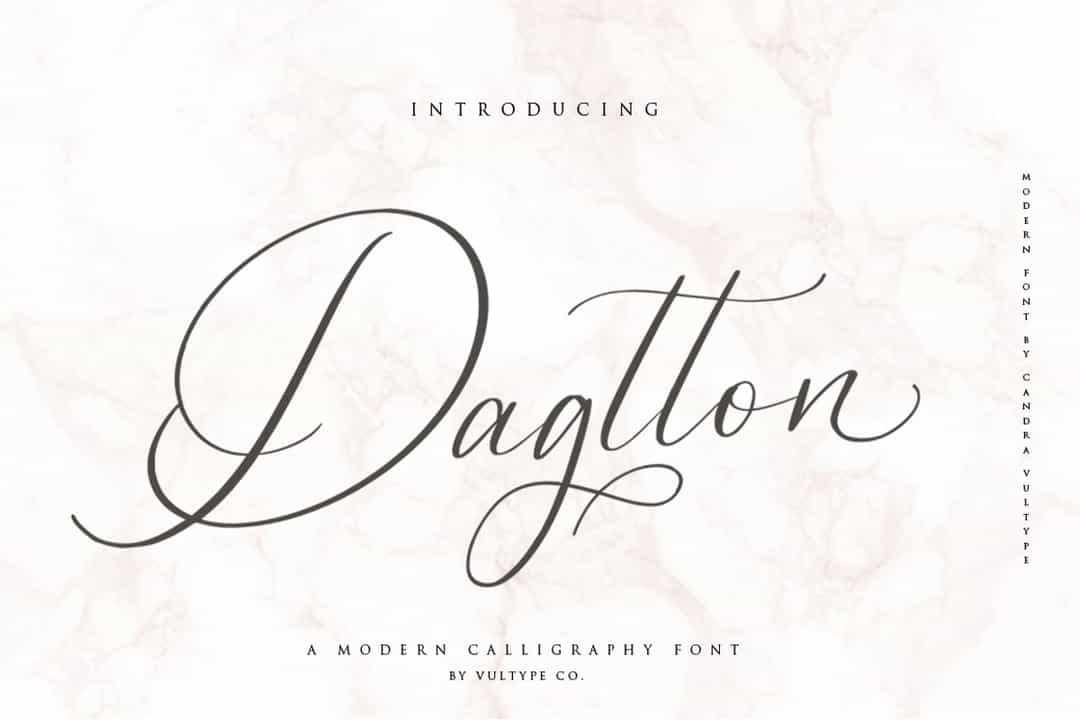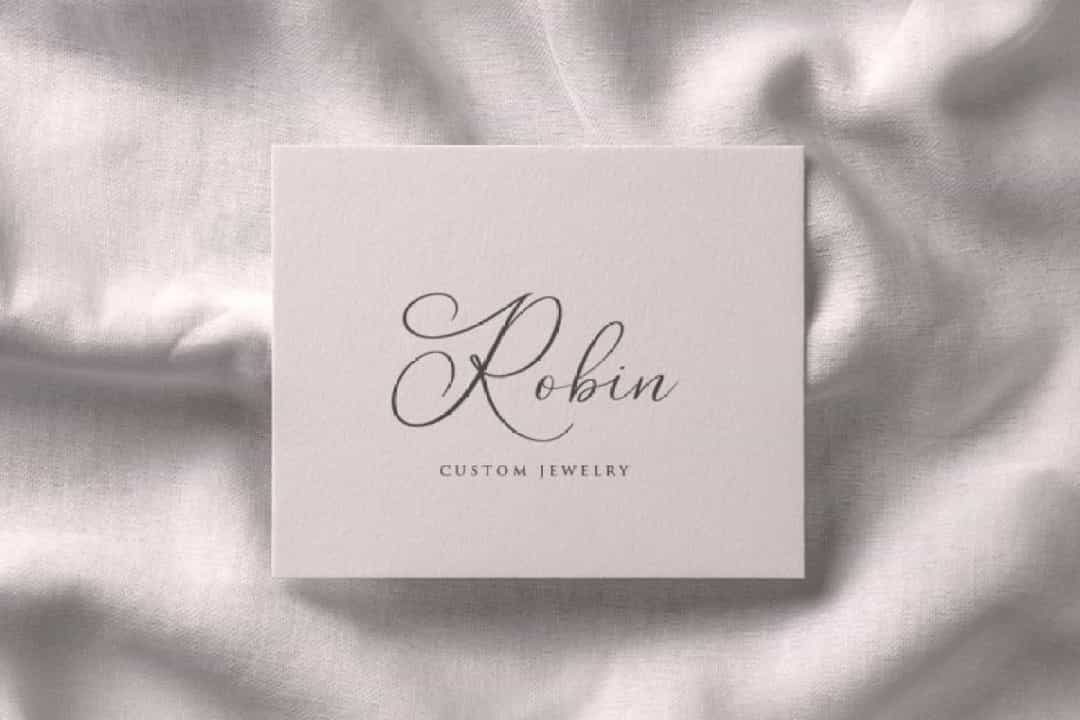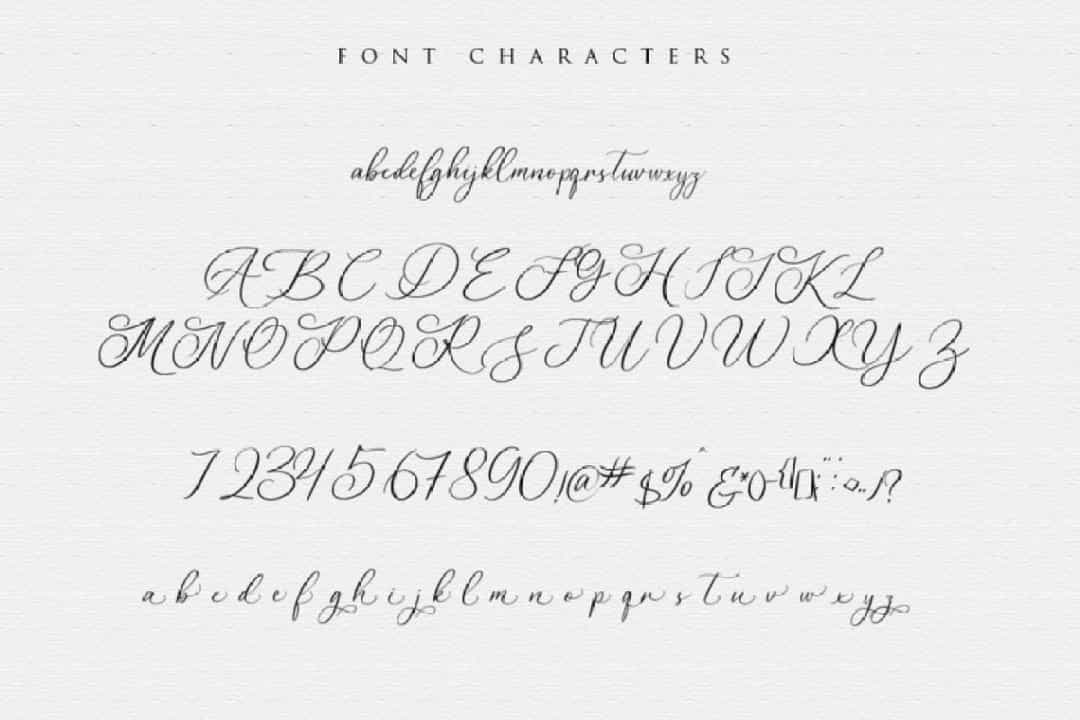
It’s a very graceful calligraphy font, with fine details and it is perfect for creating invitations to weddings, cards for thank you, or special greetings, cards for any occasion, business cards and, logos for companies and brands to give them a more professional look.